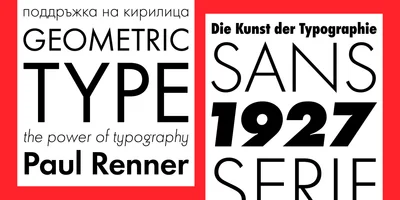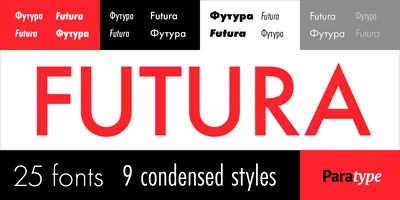
About Futura Condensed
- Foundry
- Bitstream
- Classification
- sans-serif
- Style
- geometric
Futura Condensed is a narrow-width variant of Paul Renner's Futura, offering the geometric purity of the original design compressed into space-efficient proportions. Published through Bitstream's type library, this condensed version maintains Futura's characteristic geometric construction while reducing horizontal width.
History and Design
Condensed variants of Futura emerged as designers needed the typeface's geometric authority in contexts where horizontal space was limited. The condensed width preserves the circular geometry of Futura's bowls in compressed form, maintaining recognizable proportions while fitting more text per line.
The result reads unmistakably as Futura while performing in headline, signage, and editorial contexts where standard-width Futura would consume too much horizontal space. The vertical emphasis created by the condensed proportions also adds a sense of height and formality to headline compositions.
Technical Characteristics
- Compressed geometry: Futura's circular forms narrowed while preserving geometric character
- Vertical emphasis: Condensed proportions create a tall, authoritative presence
- Even stroke weight: Maintains Futura's minimal stroke contrast in narrower letterforms
- Space efficiency: Fits more characters per line without sacrificing geometric identity
- Multiple weights: Range of weights for hierarchical headline and text use
Use Cases
Futura Condensed suits space-constrained and headline applications:
- Newspaper and magazine headlines: Maximum impact in limited column widths
- Poster and display typography: Tall, geometric letterforms for bold compositions
- Signage and wayfinding: Space-efficient lettering with clear geometric identity
- Packaging: Condensed text areas on product labels and boxes
- Data-dense layouts: Infographics and tables requiring compact yet legible type